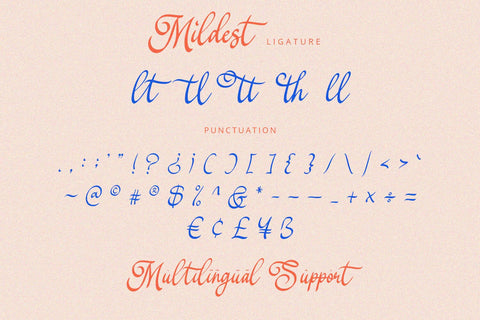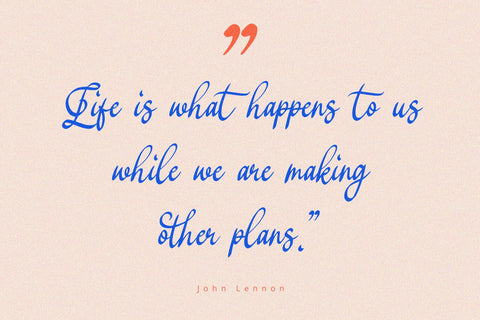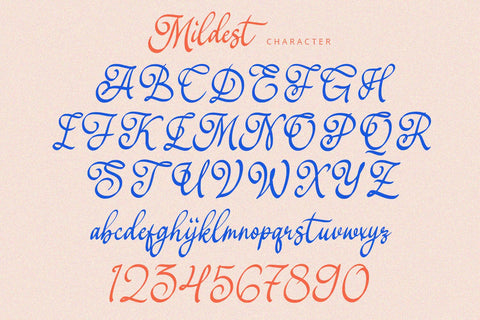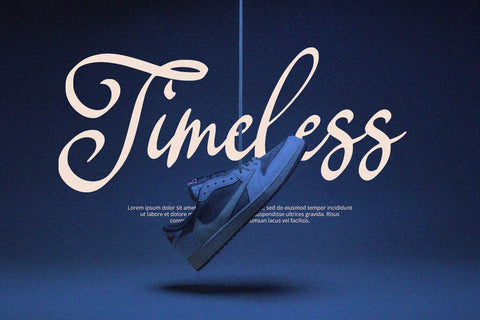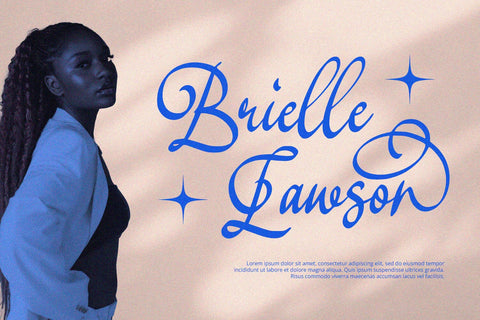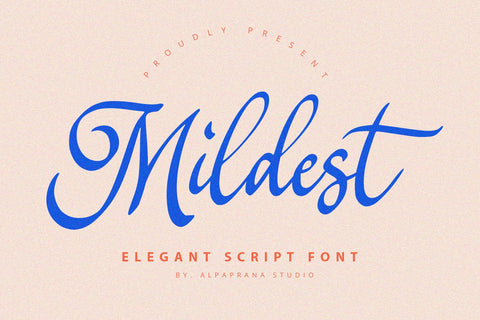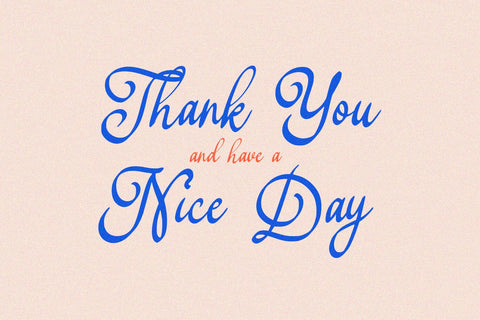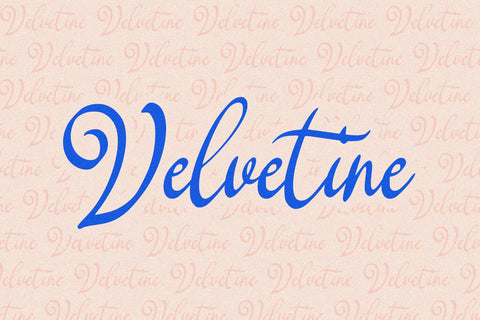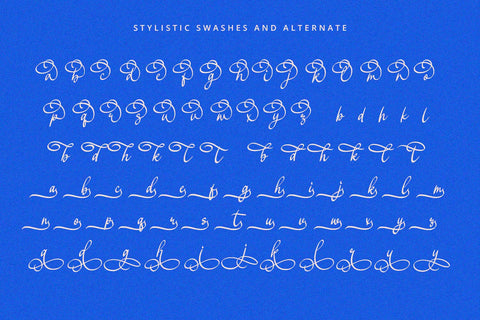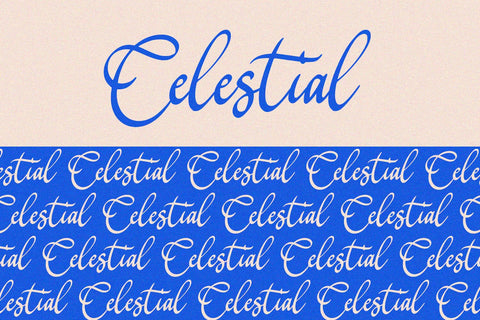
Mildest - Script Font
Mildest is a modern script font with unique and modern feels. It will be perfectly used for Branding, Logo Design, Lettering, Logotype, Clothing, Poster, magazine, packaging, posters, shopping bags, t-shirts, book covers, photography, special events and other design project.